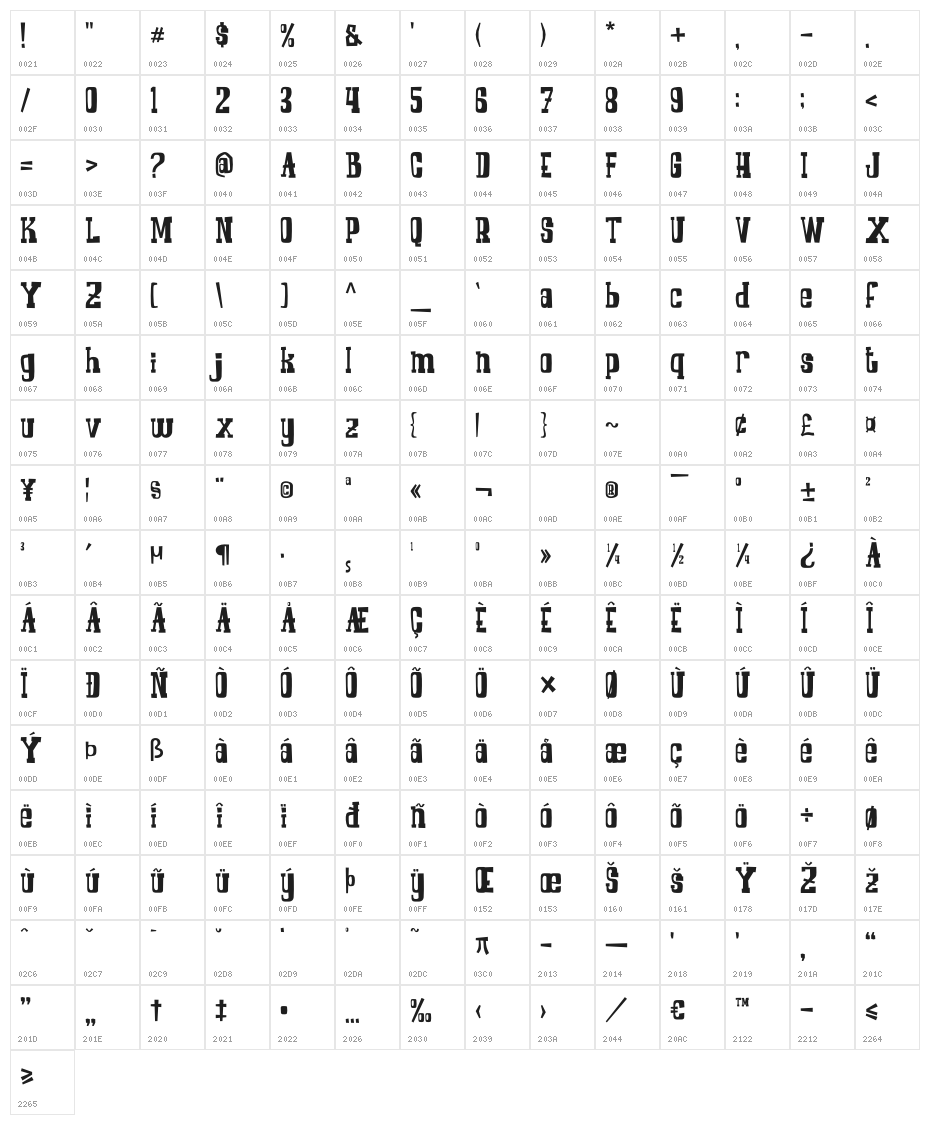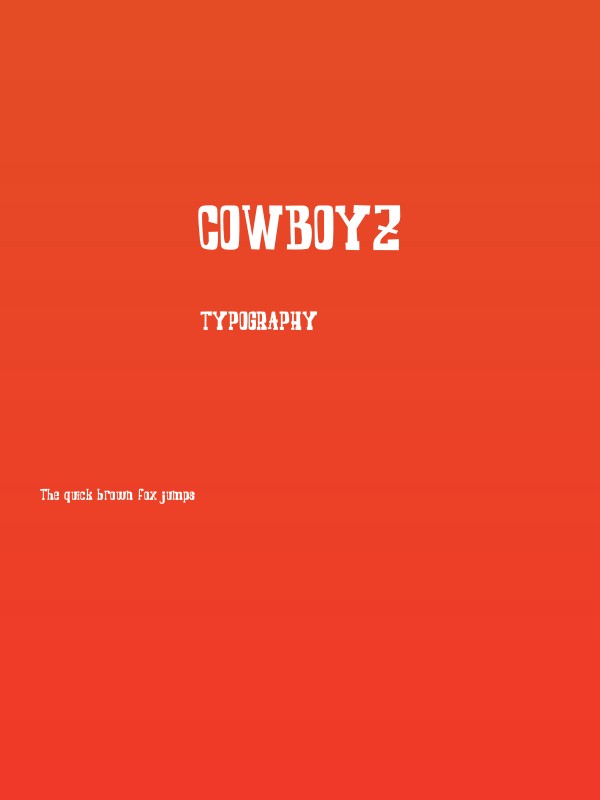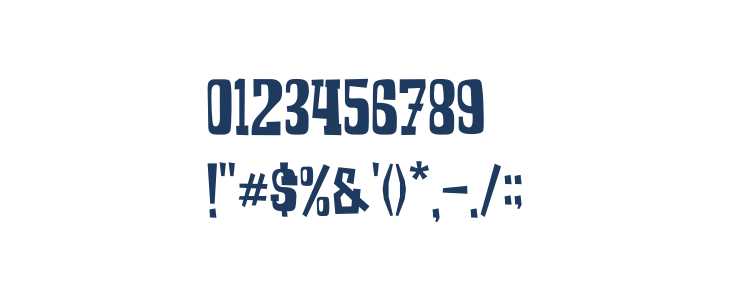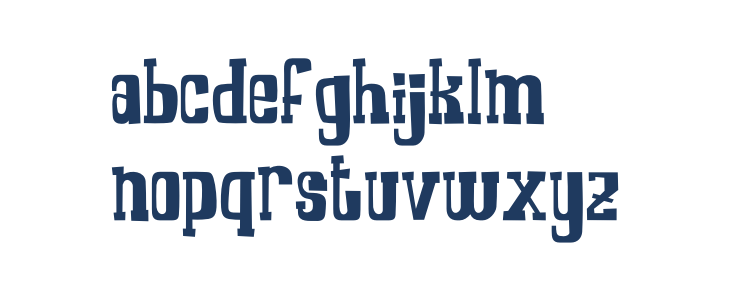
COWBOYZ Font
COWBOYZ Description
This font exudes a rugged, Western-inspired aesthetic, characterized by its bold and blocky letterforms. The uppercase letters are particularly striking, with thick strokes and subtle serifs that evoke a sense of strength and durability. The lowercase letters maintain this robust style, offering a cohesive look across all text. Numbers and special characters are crafted with the same attention to detail, ensuring consistency throughout. The font's unique charm lies in its ability to convey a sense of adventure and nostalgia, making it ideal for projects that require a touch of the Wild West.